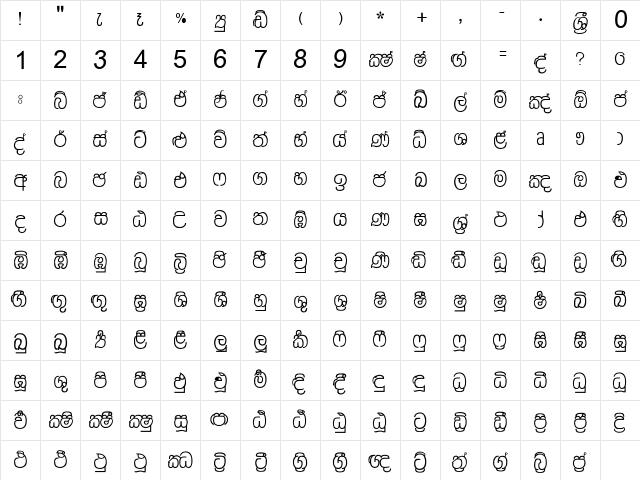
Matara Supplement Regular
Design Context for Matara Supplement Typeface
Matara Supplement is a composed and adaptable typeface that performs quietly and consistently across a wide range of design contexts.